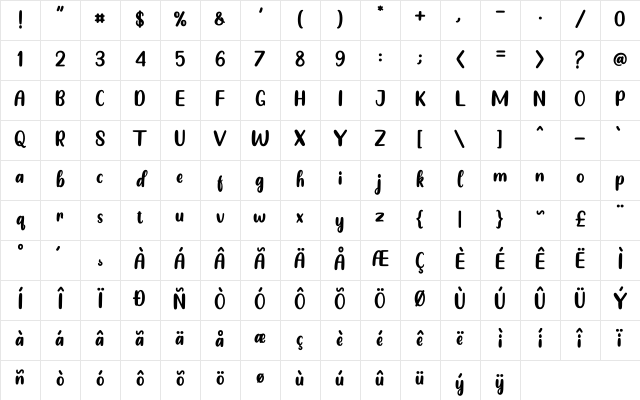
Aurelin Regular Free Font
Aurelin Regular
Design Context for Aurelin
Aurelin is a composed and adaptable typeface that performs quietly and consistently across a wide range of design contexts.